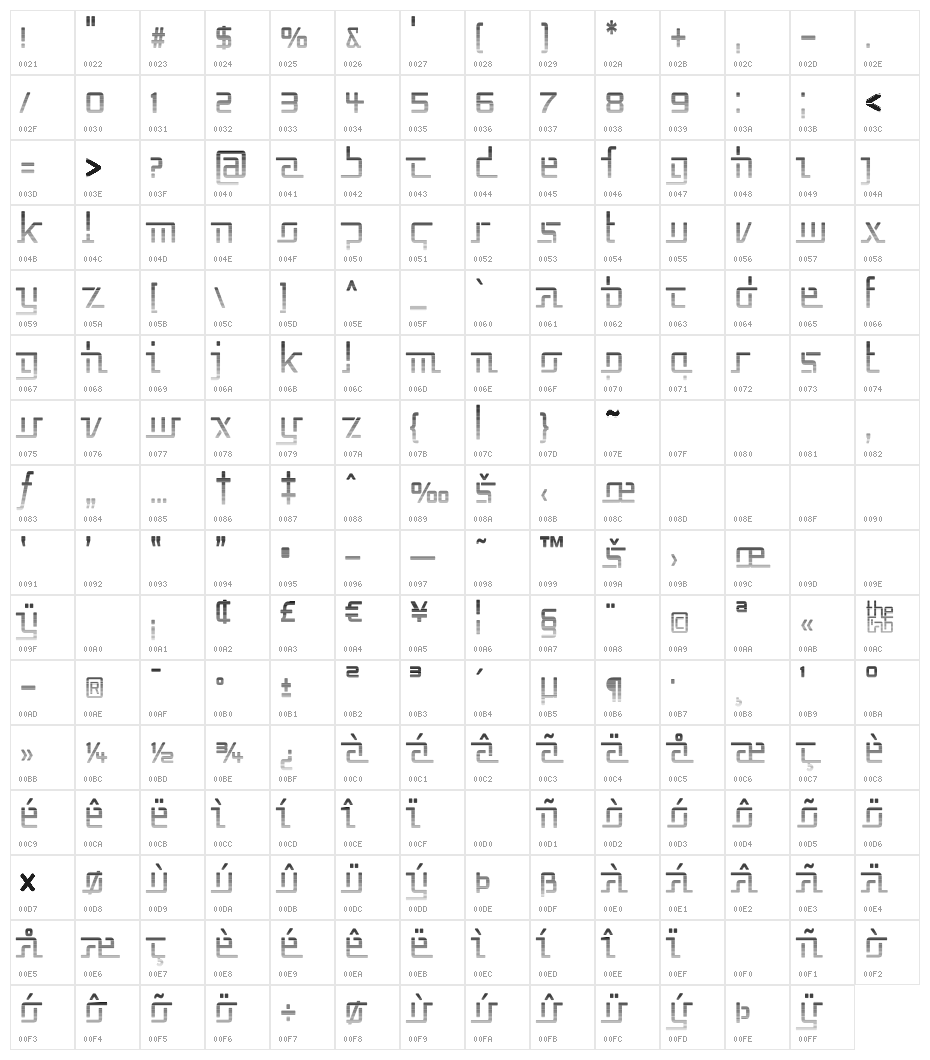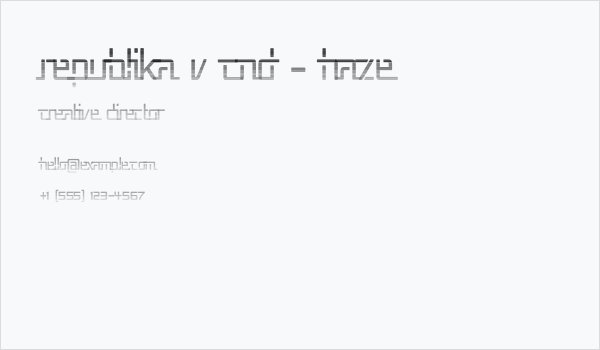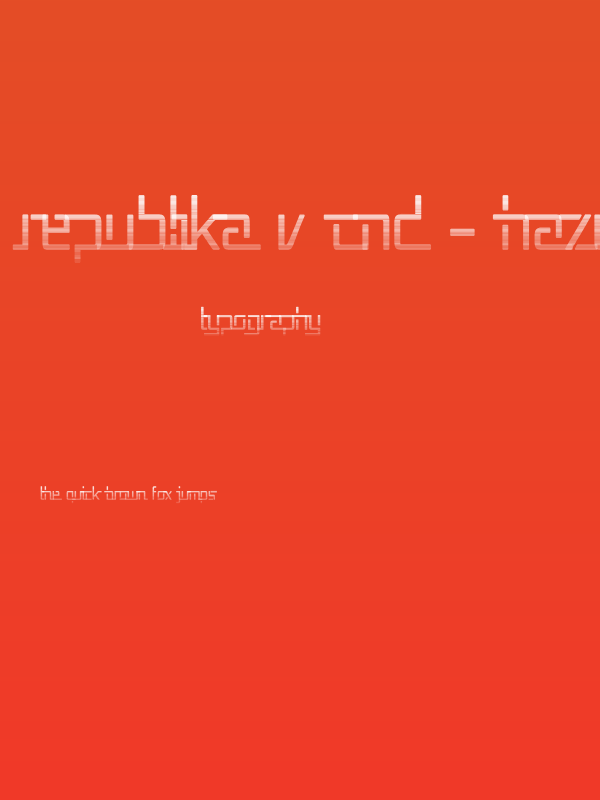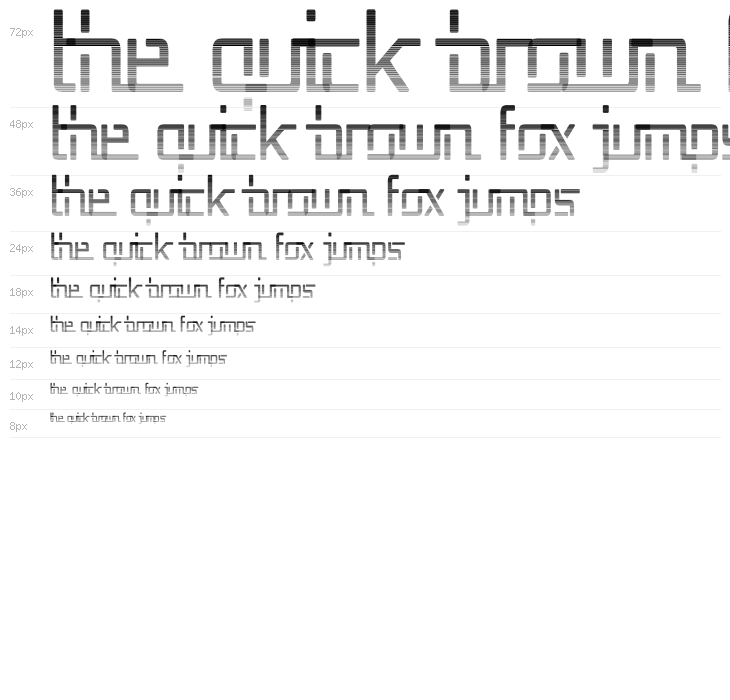
Republika V Cnd - Haze Font
Republika V Cnd - Haze Description
This font features a futuristic and geometric design with a distinct digital aesthetic. The characters are constructed with a combination of straight lines and sharp angles, giving them a mechanical and modern appearance. The use of horizontal lines and consistent stroke width throughout the characters adds to its technical feel. The font maintains a uniform height across both uppercase and lowercase letters, enhancing its structured look. The numerals and special characters follow the same design principles, ensuring a cohesive visual style. This font is ideal for projects that require a contemporary and tech-savvy vibe.
| Proposed Projects | Ideal for technology branding, digital interfaces, video game design, and sci-fi themed projects. |